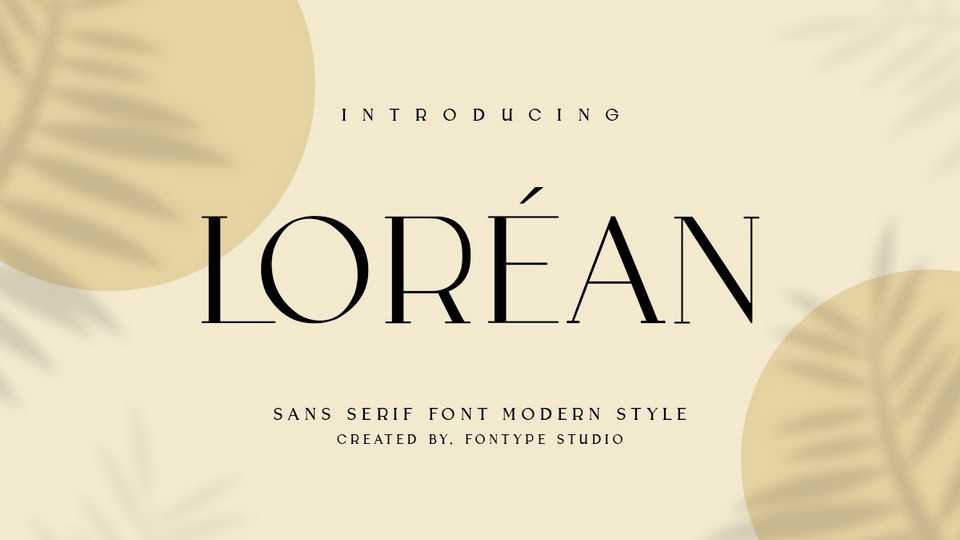
Download Lorean font, a serif typeface inspired by senior art and femininity, where the font that sees this is a very valuable and unique soul. Lorean fonts are mixed with various techniques and high harmony to make the font get feels an elegant, simple, unique and feminine impression.
Designer: Ridwan Fadilah